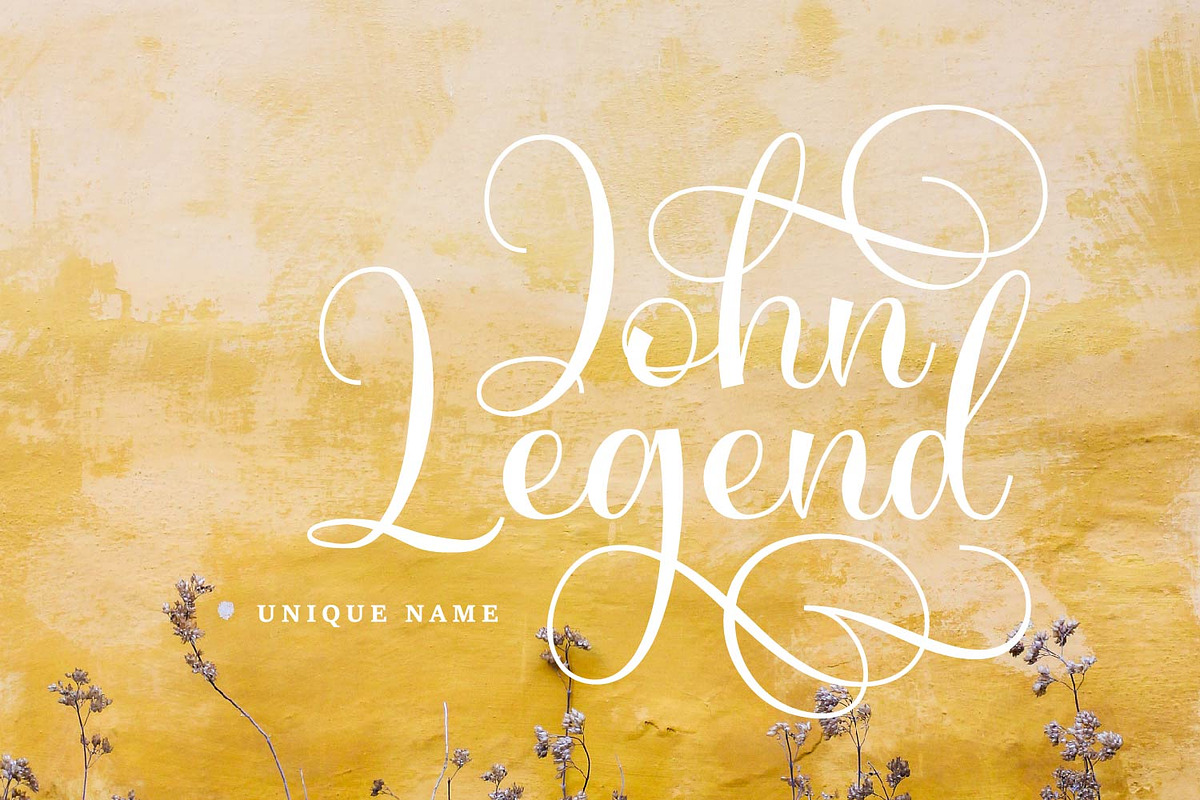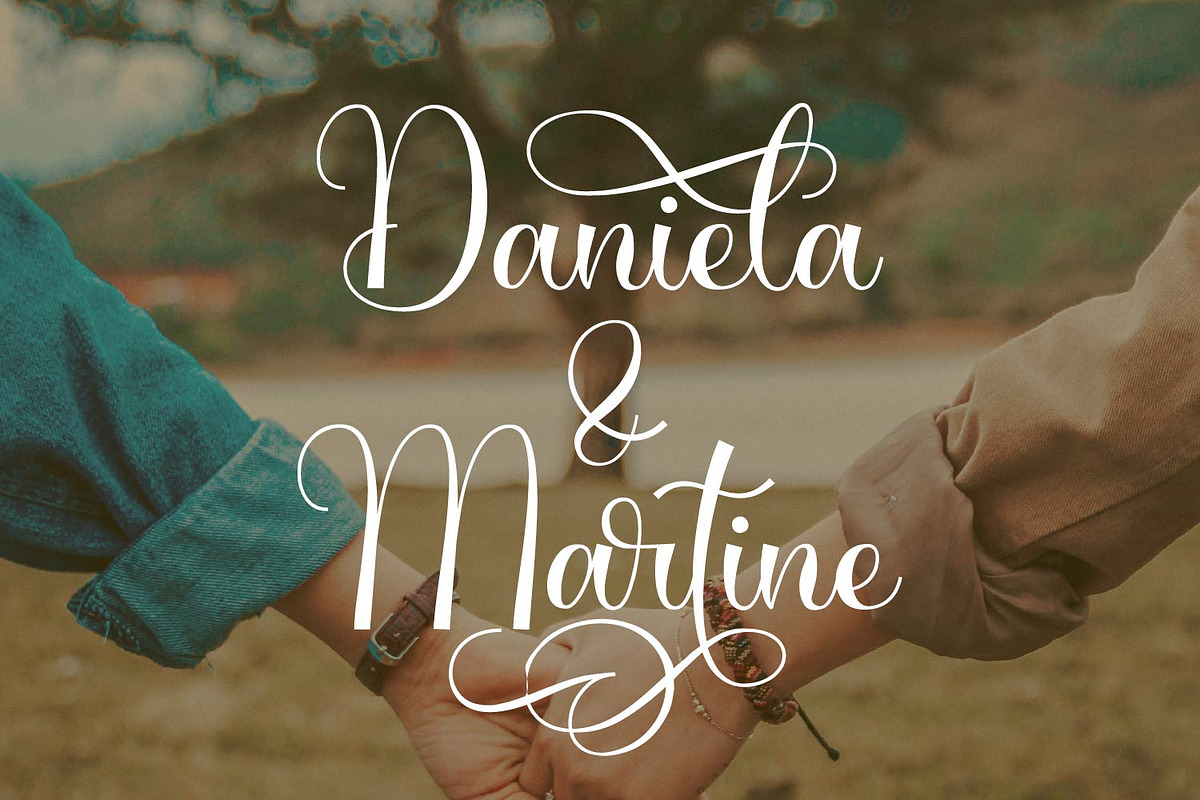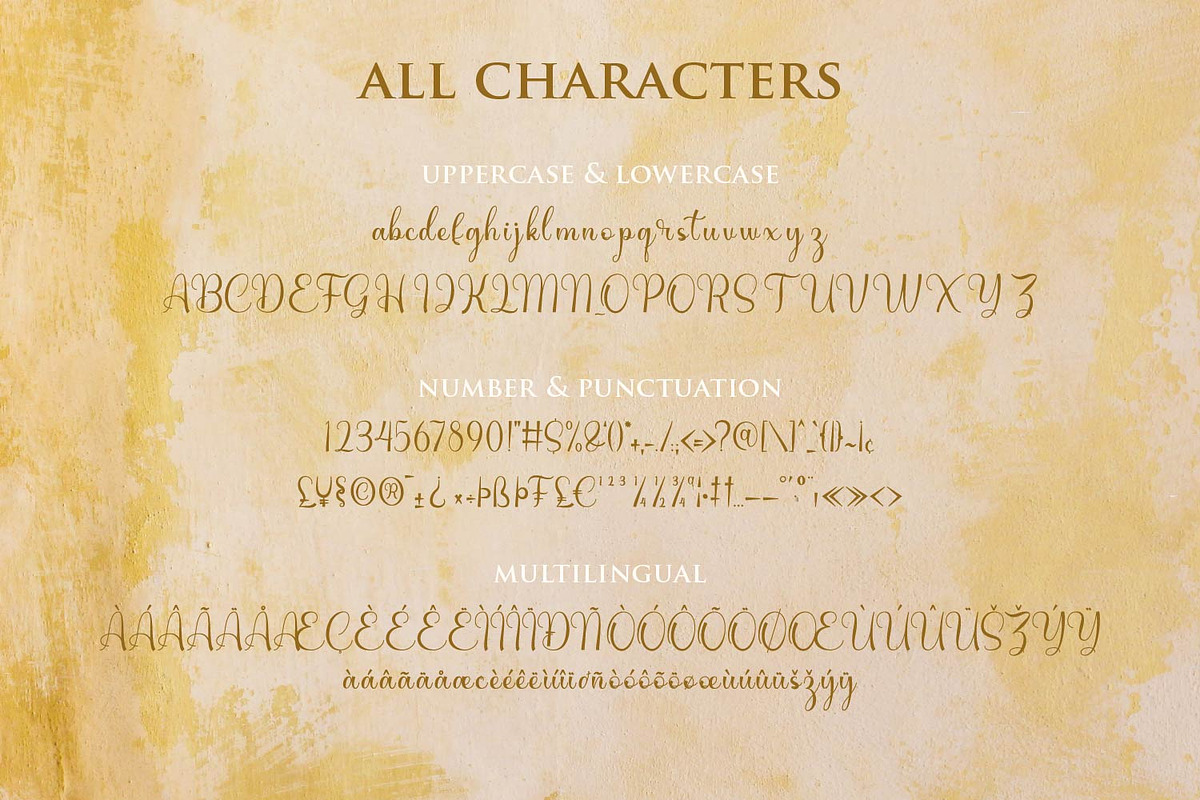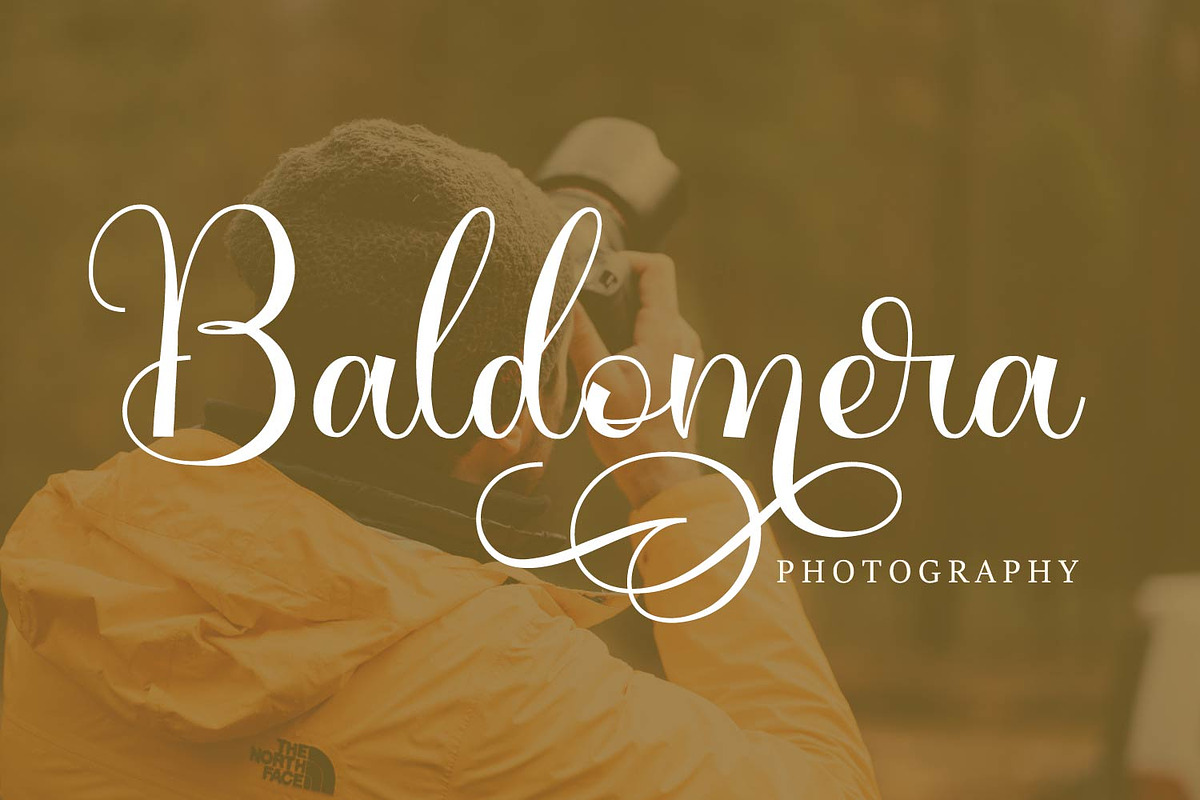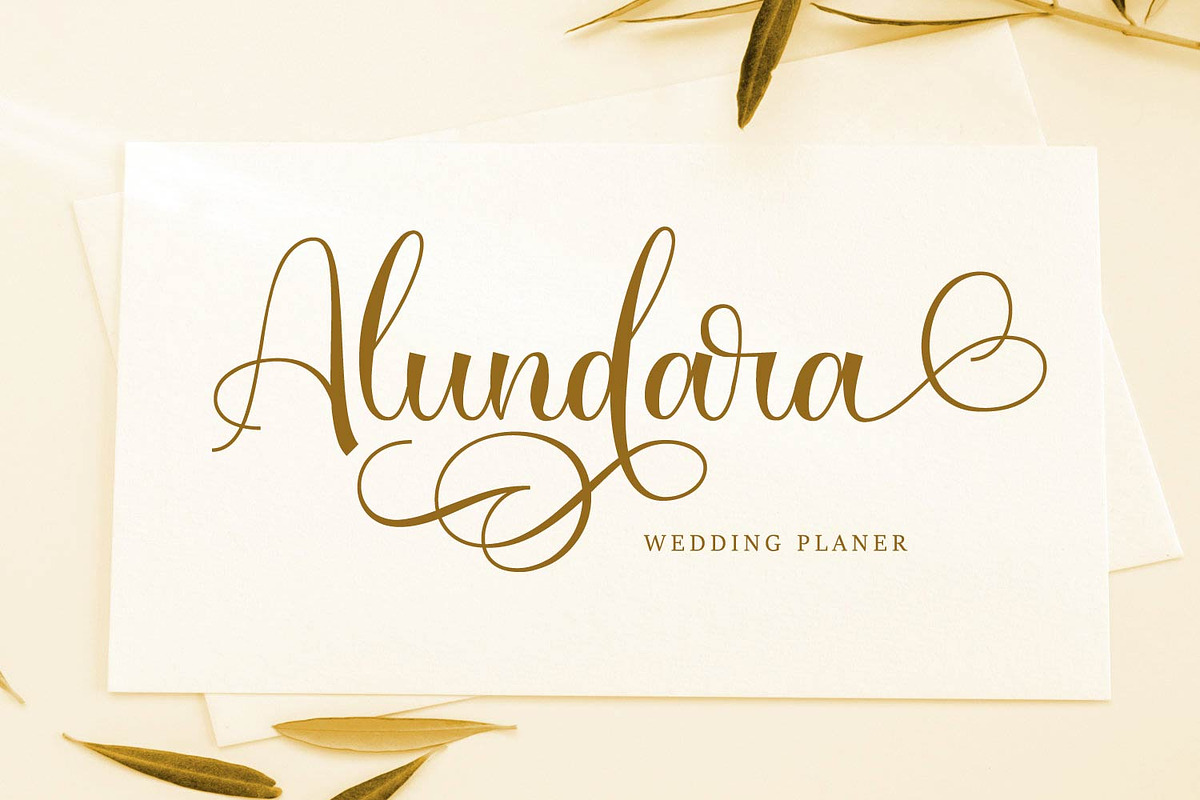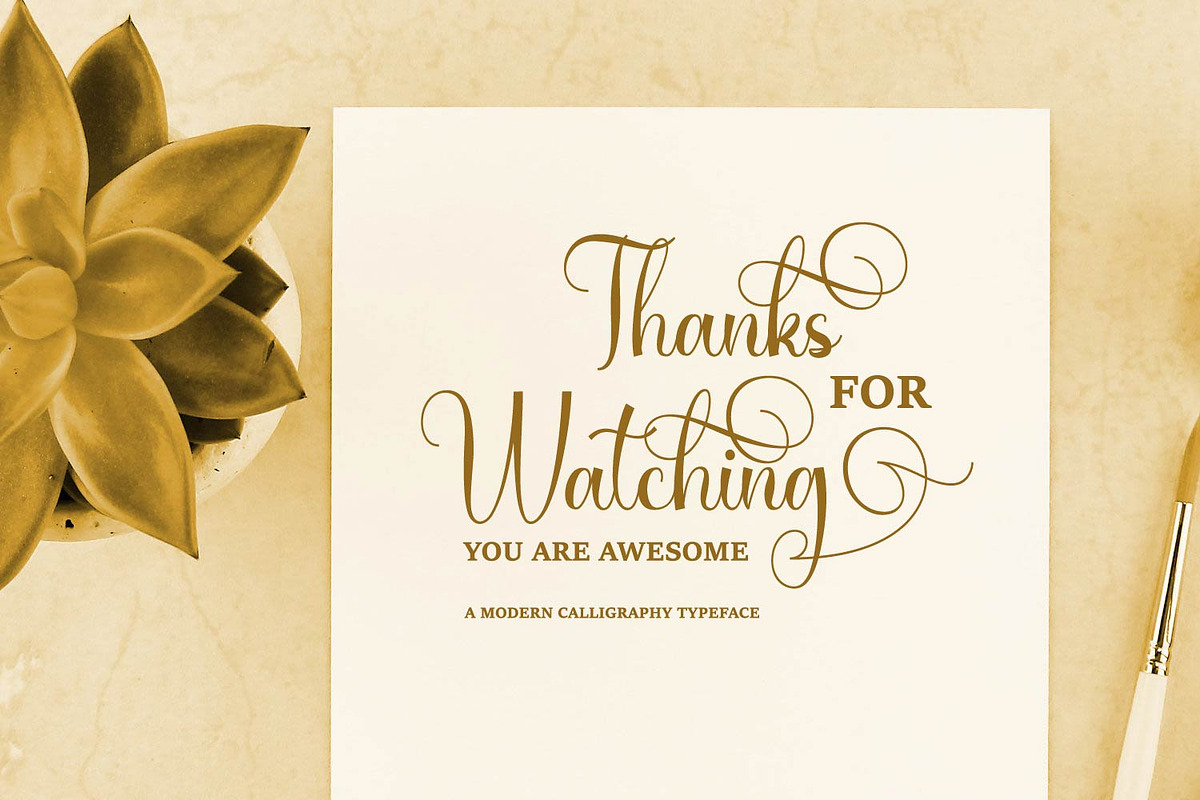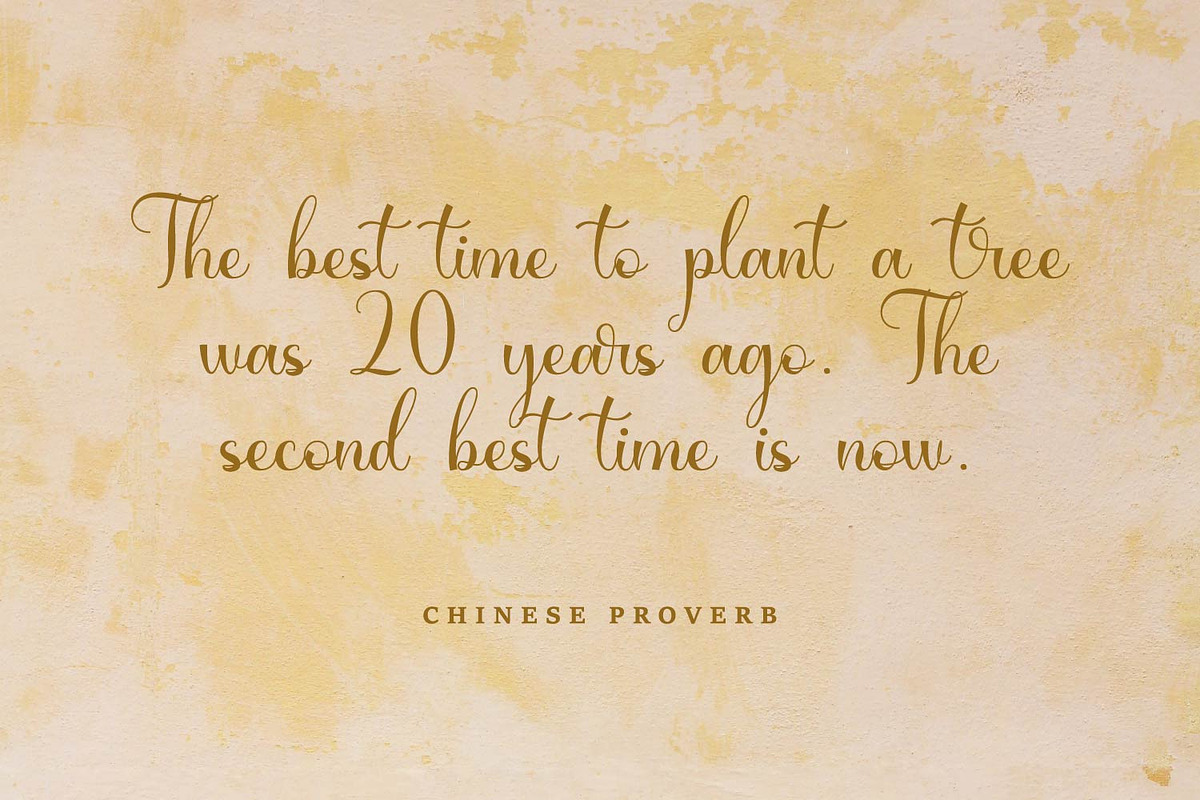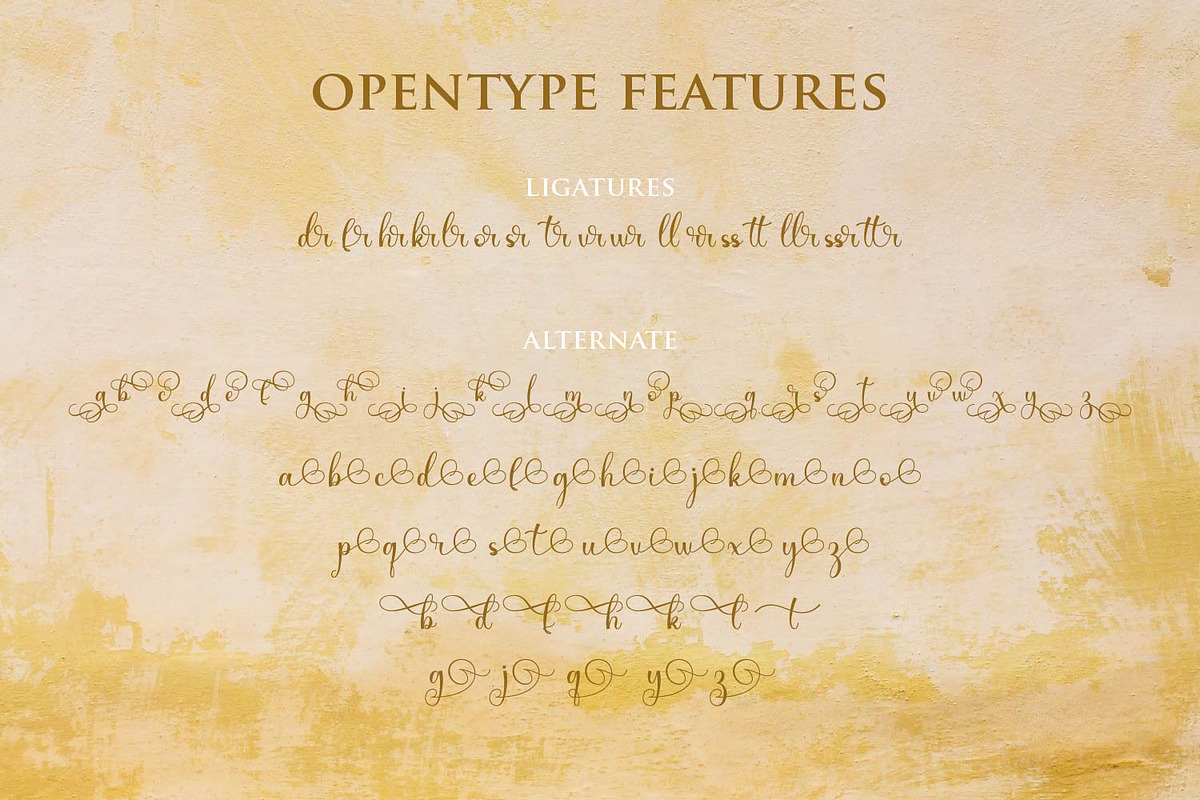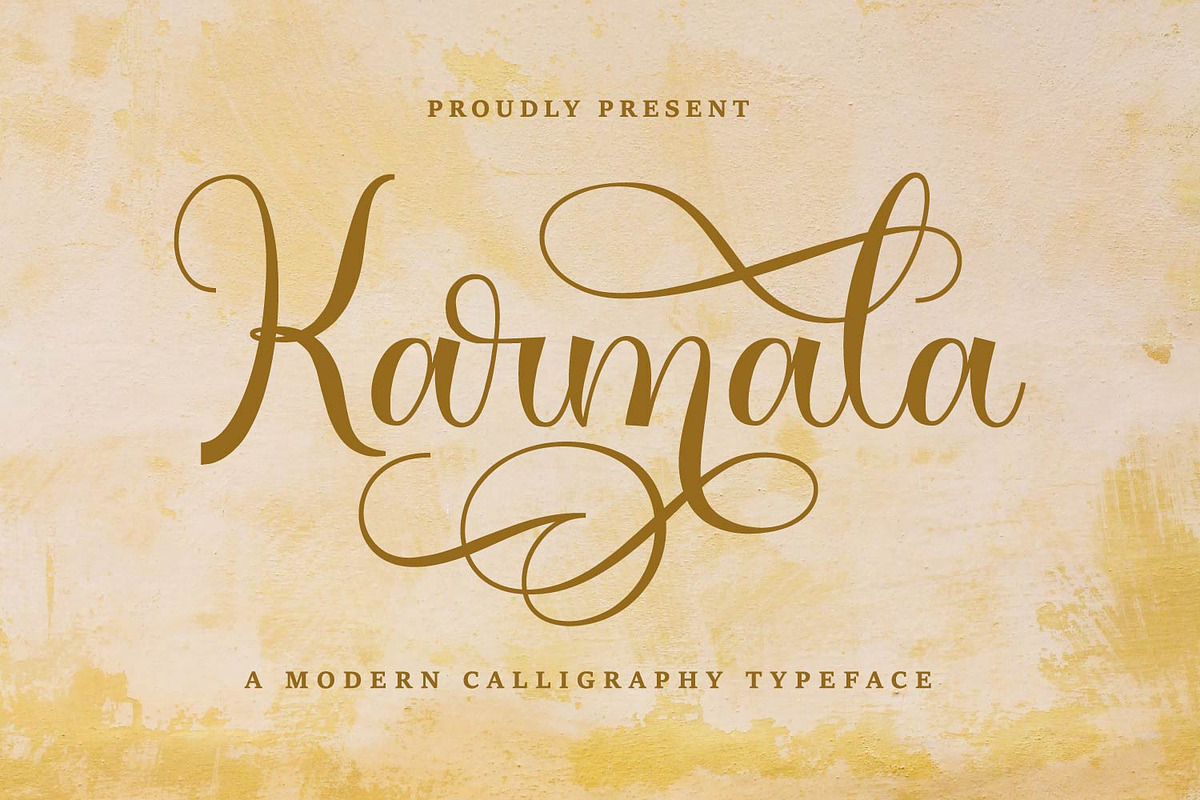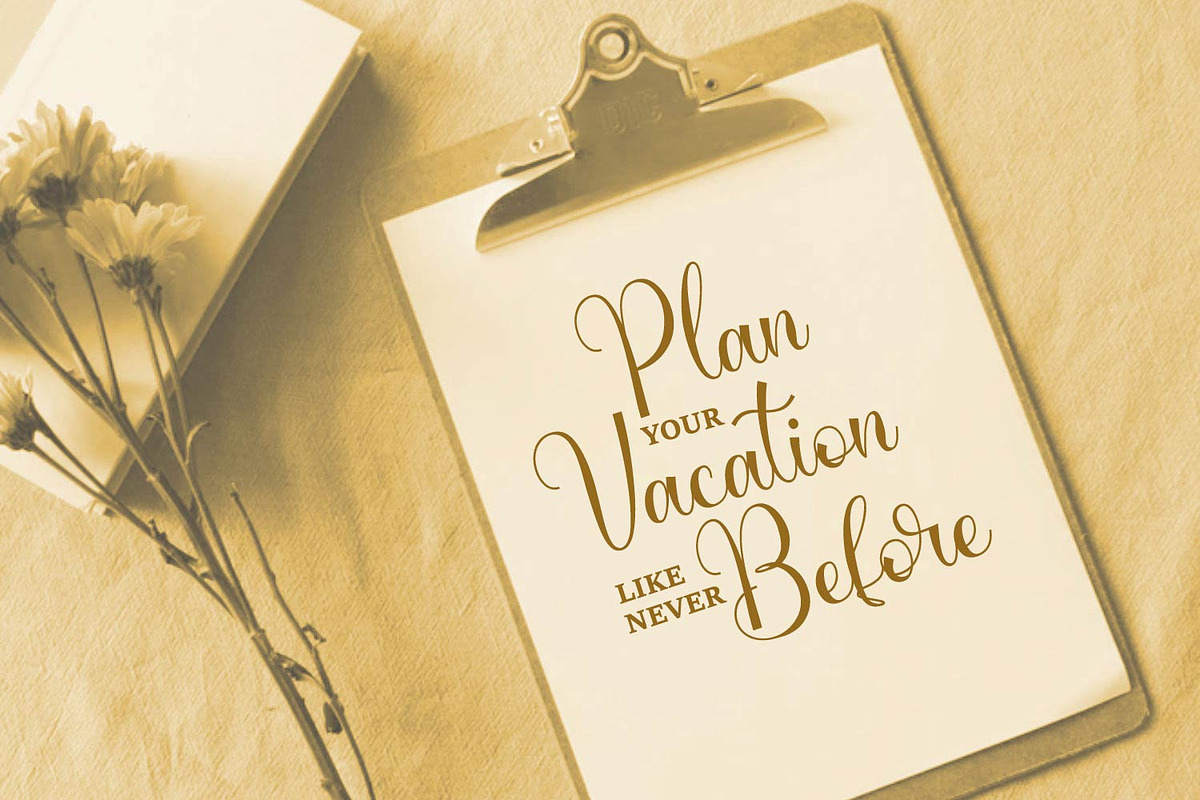
Karmala
Karmala feels equally charming and elegant. It looks stunning on wedding invitations, thank you cards, quotes, greeting cards, logos, business cards and every other design which needs a handwritten touch. This font is PUA encoded which means you can access all of the glyphs and swashes with ease! It features a varying baseline, smooth lines, gorgeous glyphs and stunning alternates.
Feature:
- Numbers and punctuation marks